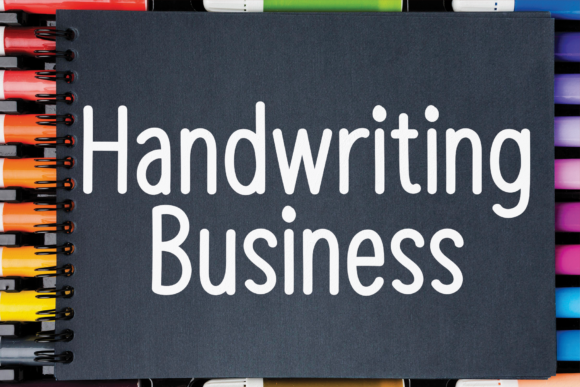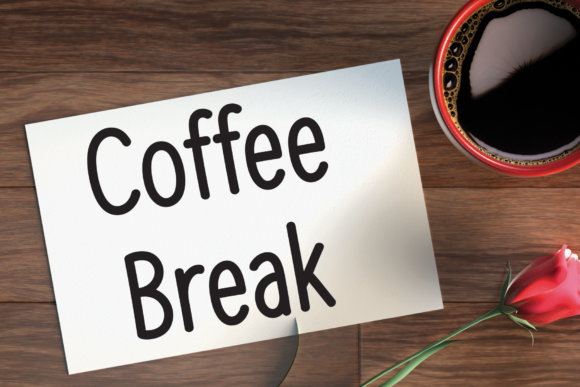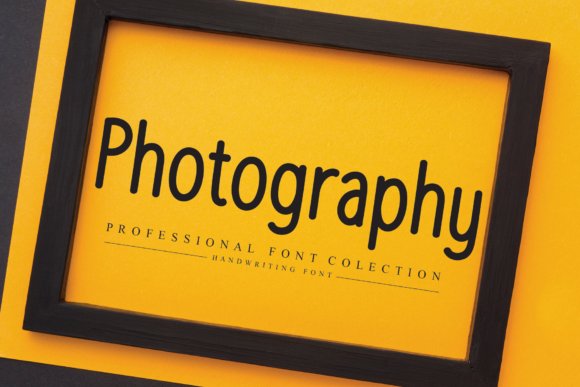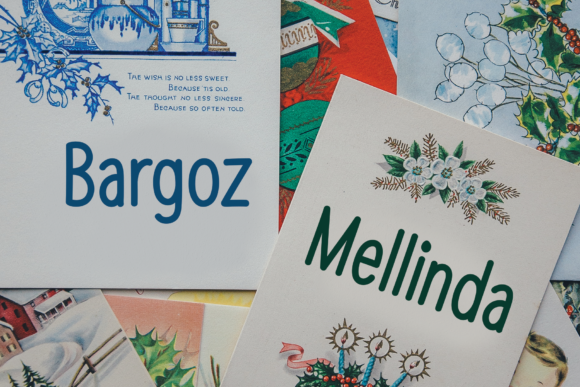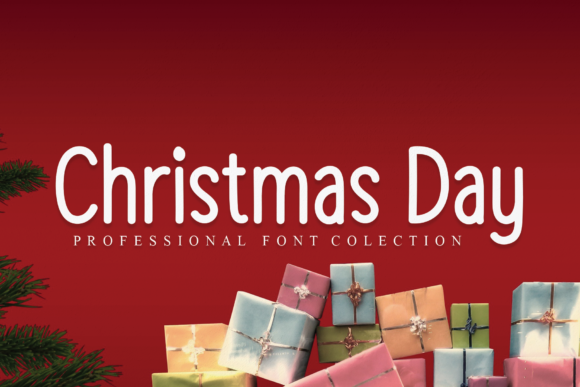
Introducing Christmas Day Font: A Simple and Elegant Handwritten Font
Are you looking for a font that captures the essence of the holiday season? Look no further than Christmas Day Font, a beautiful and simple handwritten font that’s perfect for adding a touch of elegance to your designs. With its clean, thin, and smooth vibe, Christmas Day Font is sure to be a hit for any design project you want to add it to.
What Makes Christmas Day Font So Special?
Christmas Day Font is a unique and charming font that’s designed to evoke the feeling of a handwritten note. Its simplicity and natural elegance make it perfect for a wide range of design applications, from holiday cards and invitations to packaging and branding. Whether you’re a designer, crafter, or DIY enthusiast, Christmas Day Font is a versatile and beautiful addition to your font collection.
Key Features of Christmas Day Font
• Clean and Simple Design: Christmas Day Font features a clean and simple design that’s easy to read and looks great in a variety of contexts.
• Thin and Smooth Lines: The font’s thin and smooth lines give it a elegant and sophisticated feel that’s perfect for designs that require a touch of refinement.
• Handwritten Feel: Despite its simplicity, Christmas Day Font still has a warm and inviting handwritten feel that’s perfect for adding a personal touch to your designs.
• Versatile: Christmas Day Font is versatile and can be used for a wide range of design applications, from digital designs to print materials.
How to Use Christmas Day Font in Your Designs
Christmas Day Font is easy to use and can be incorporated into a wide range of design projects. Here are a few ideas to get you started:
• Holiday Cards and Invitations: Use Christmas Day Font to create beautiful and elegant holiday cards and invitations that are sure to impress.
• Packaging and Branding: Add a touch of elegance to your packaging and branding with Christmas Day Font, perfect for businesses that want to stand out during the holiday season.
• Digital Designs: Use Christmas Day Font in your digital designs, such as social media graphics, blog posts, and email newsletters, to add a touch of festive flair.
• Crafting and DIY Projects: Christmas Day Font is perfect for crafters and DIY enthusiasts who want to add a personal touch to their projects, such as handmade cards, gift tags, and decorations.
Tips for Getting the Most Out of Christmas Day Font
Here are a few tips for getting the most out of Christmas Day Font:
• Experiment with Different Sizes: Christmas Day Font looks great in a variety of sizes, so don’t be afraid to experiment to find the perfect size for your design.
• Pair with Other Fonts: Christmas Day Font pairs well with other fonts, so try combining it with a bold font for a striking contrast.
• Use in Combination with Images: Christmas Day Font looks great in combination with images, such as holiday-themed illustrations or photographs.
Christmas Day Font is a beautiful and elegant handwritten font that’s perfect for adding a touch of festive flair to your designs. With its clean, thin, and smooth vibe, it’s sure to be a hit for any design project you want to add it to. Whether you’re a designer, crafter, or DIY enthusiast, Christmas Day Font is a versatile and beautiful addition to your font collection.